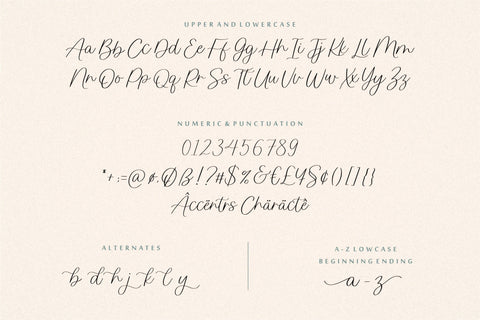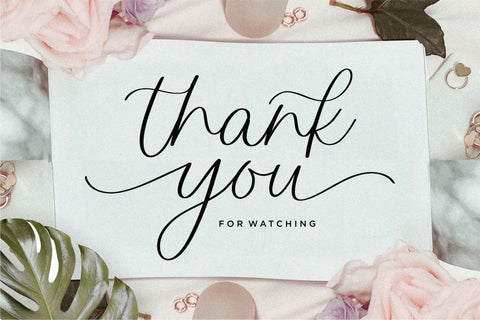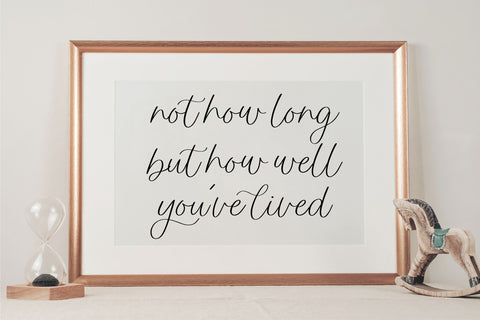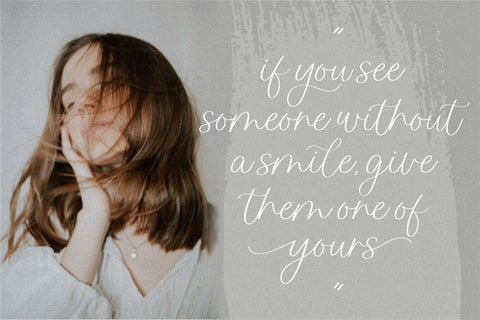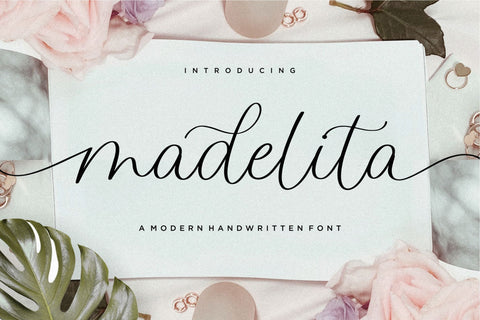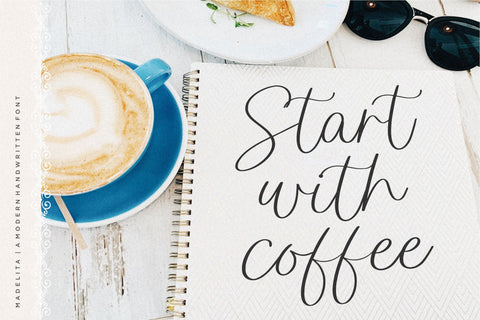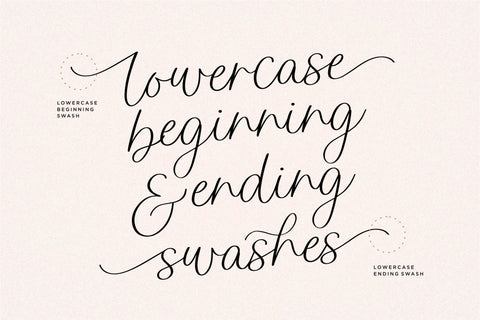
madelita Modern Handwritten Font
Proudly Present, madelita Font.
madelita is a Modern Handwritten Font.
madelita is perfect for product packaging, branding project, megazine, social media, wedding, or just used to express words above the background.
Lowercase font Stylistic Alternates Ligatures Symbols & Punctuation OpenType Features.